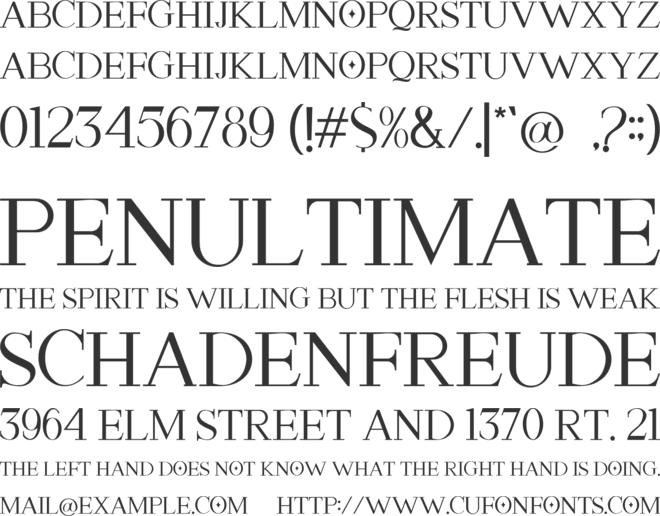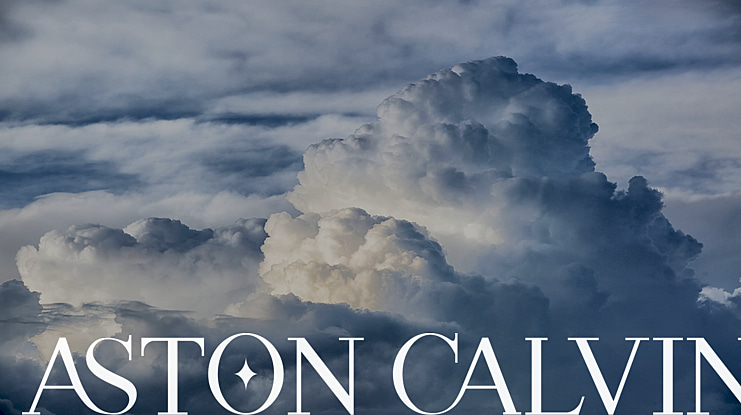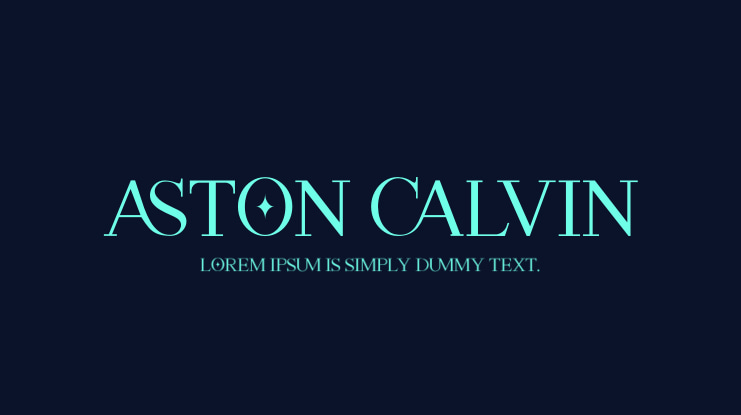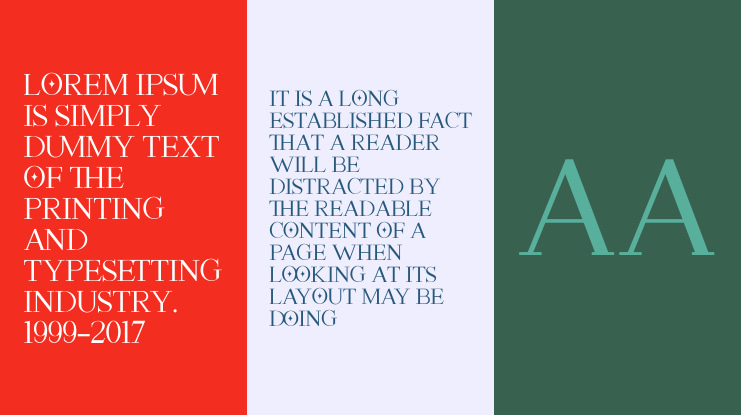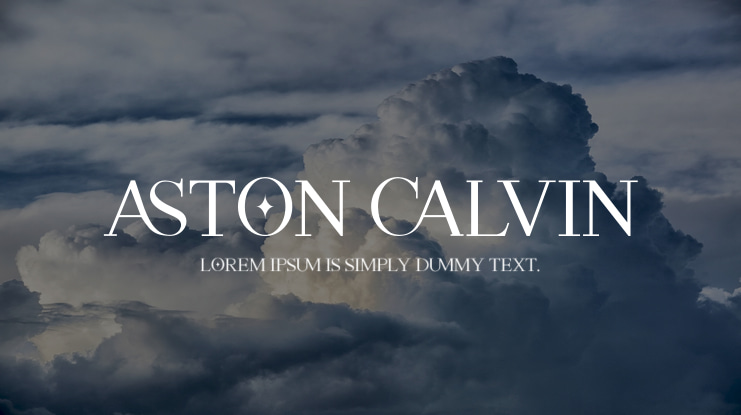
ASTON CALVIN Font
Introducing our new collection typeface is Aston Calvin , a modern ligature serif font with elegant style.It’s an easy way & perfect choice to make your Design artwork standout, is perfectly suitable for creating modern style,like a logo branding, Fashion product, Fashion branding and more.
Aston Calvin also came with alternate characters and ligature to
make everything more Fancy.